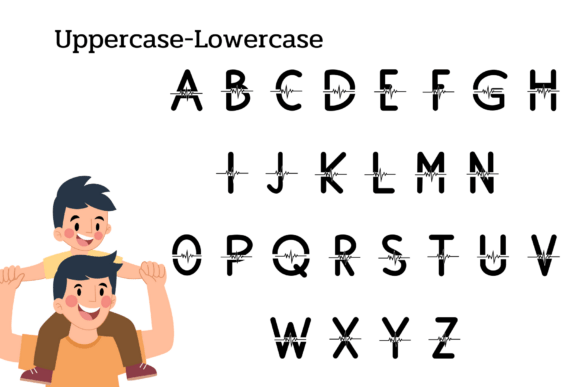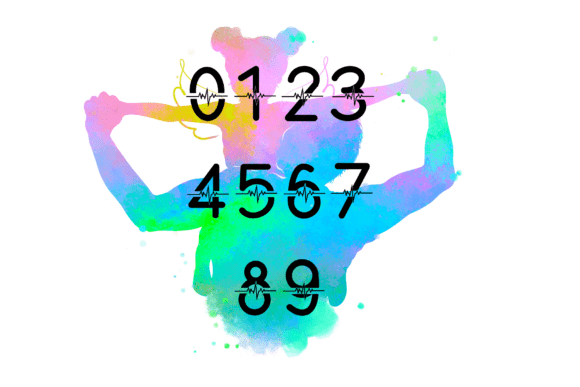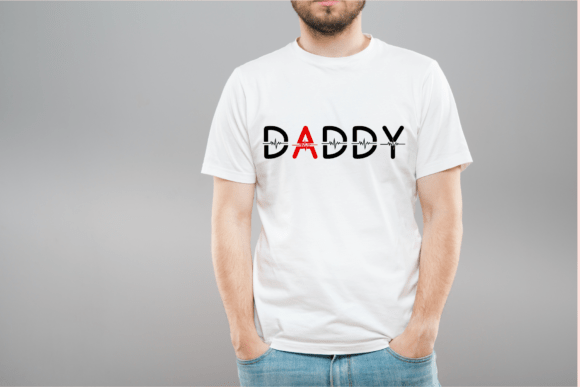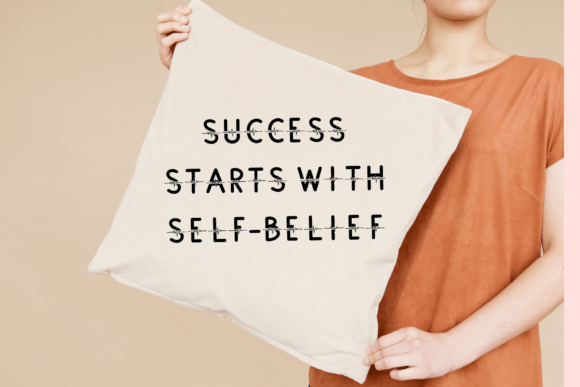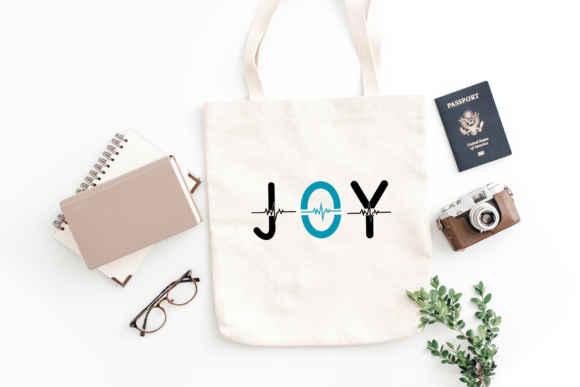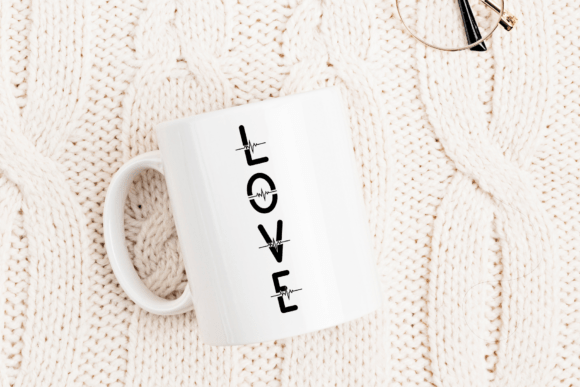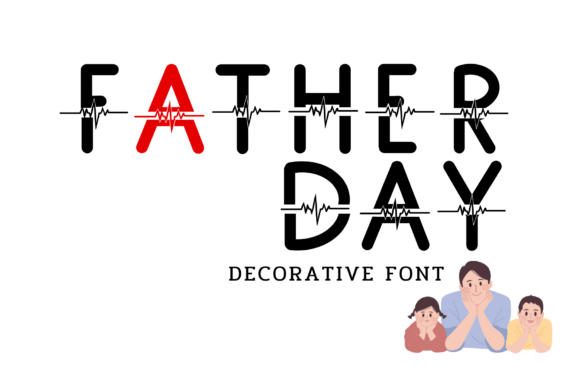
Introducing Father Day Font: A Heartwarming Typeface for Father’s Day and Beyond
Are you looking for a unique and meaningful font to make your Father’s Day cards, healthcare graphics, and family-themed branding stand out? Look no further than the Father Day Font, a decorative typeface that incorporates heartbeat line elements into each letter. This beautiful font is perfect for designers and crafters who want to add a touch of love and strength to their designs.
What Makes Father Day Font Special?
The Father Day Font is a one-of-a-kind typeface that combines elegant lettering with a subtle heartbeat line element, creating a unique and eye-catching visual effect. Each letter is carefully crafted to include a stylized heartbeat line that adds a sense of warmth and personality to your designs. Whether you’re creating a Father’s Day card, a healthcare graphic, or a family-themed brand identity, this font is sure to make your design shine.
Perfect for Father’s Day Celebrations
Father’s Day is just around the corner, and what better way to celebrate than with a custom design that comes from the heart? The Father Day Font is the perfect choice for creating heartfelt Father’s Day cards, posters, and social media graphics. The font’s built-in heartbeat line element adds a touching and sentimental touch to your designs, making them extra special for dads and father figures everywhere.
Ideal for Healthcare Graphics and Family-Themed Branding
But the Father Day Font isn’t just limited to Father’s Day celebrations. Its unique heartbeat line element also makes it a great choice for healthcare graphics, medical branding, and family-themed designs. Whether you’re creating a logo for a healthcare organization, a brochure for a family-friendly business, or a social media campaign for a wellness brand, this font is sure to convey a sense of care, compassion, and strength.
Key Features of Father Day Font
- Unique heartbeat line element: Each letter features a stylized heartbeat line that adds a touch of warmth and personality to your designs.
- Decorative typeface: The Father Day Font is a decorative typeface that’s perfect for creating eye-catching headlines, titles, and text.
- High-quality design: The font is designed with high-quality vector shapes, ensuring that it looks great in any size or resolution.
Tips for Using Father Day Font
Here are a few tips for getting the most out of the Father Day Font:
- Use it for headlines and titles: The Father Day Font is perfect for creating eye-catching headlines and titles that add a touch of personality to your designs.
- Experiment with colors: Try pairing the font with different colors and textures to create a unique and eye-catching visual effect.
- Combine it with other fonts: Consider combining the Father Day Font with other fonts to create a contrasting and visually interesting design.
| Font Name | Father Day Font |
| Author | Chada Art |